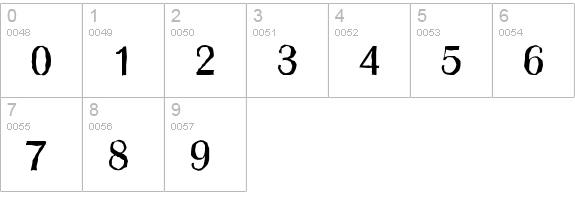
GrenobleAntique-Regular Font Details
GrenobleAntique-Regular is the standard, neutral variant in the GrenobleAntique typeface family \xE2\x80\x94 well suited to general body text, paragraphs, and standard typographic work.
GrenobleAntique-Regular font exudes timeless elegance and sophistication with its classic serif style. This versatile typeface strikes the perfect balance between traditional charm and modern readability, making it ideal for a wide range of design projects. Its graceful curves and sharp serifs lend a sense of refinement to any text, whether used for headings, body copy, or branding materials. What sets GrenobleAntique-Regular apart is not only its aesthetic appeal but also its accessibility. This exquisite font is available for free download at FontsMarket.com, allowing designers and enthusiasts alike to effortlessly incorporate its beauty into their work. Embrace the allure of GrenobleAntique-Regular and elevate your designs with its captivating presence.